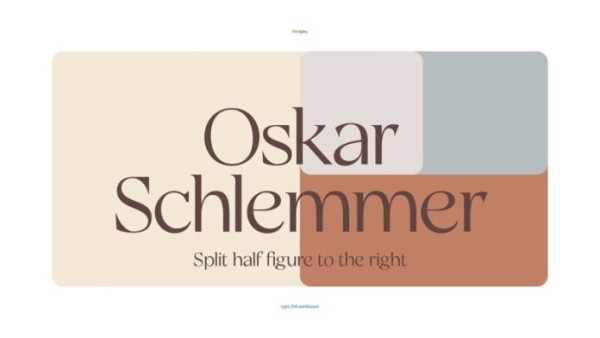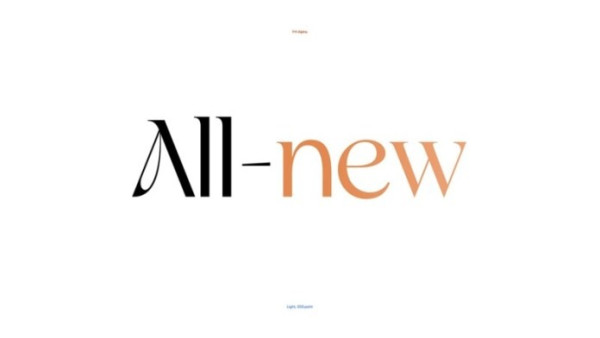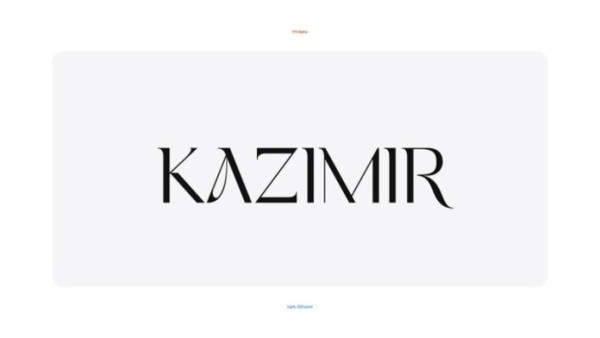
FH Alpha Font
FH Alpha Font is a stylish classic font with ligature-rich Serif. It has been designed by the inspiration of the typeface “Optima” that was designed by Hermann Zapf at the end of the 1950s. We can see the contrasty nature of the Serif typefaces in its own structure. Nevertheless, it goes without the strokes which are used in serif fonts. Since it owns a vulnerable form, we believe that it will give better results on screens.